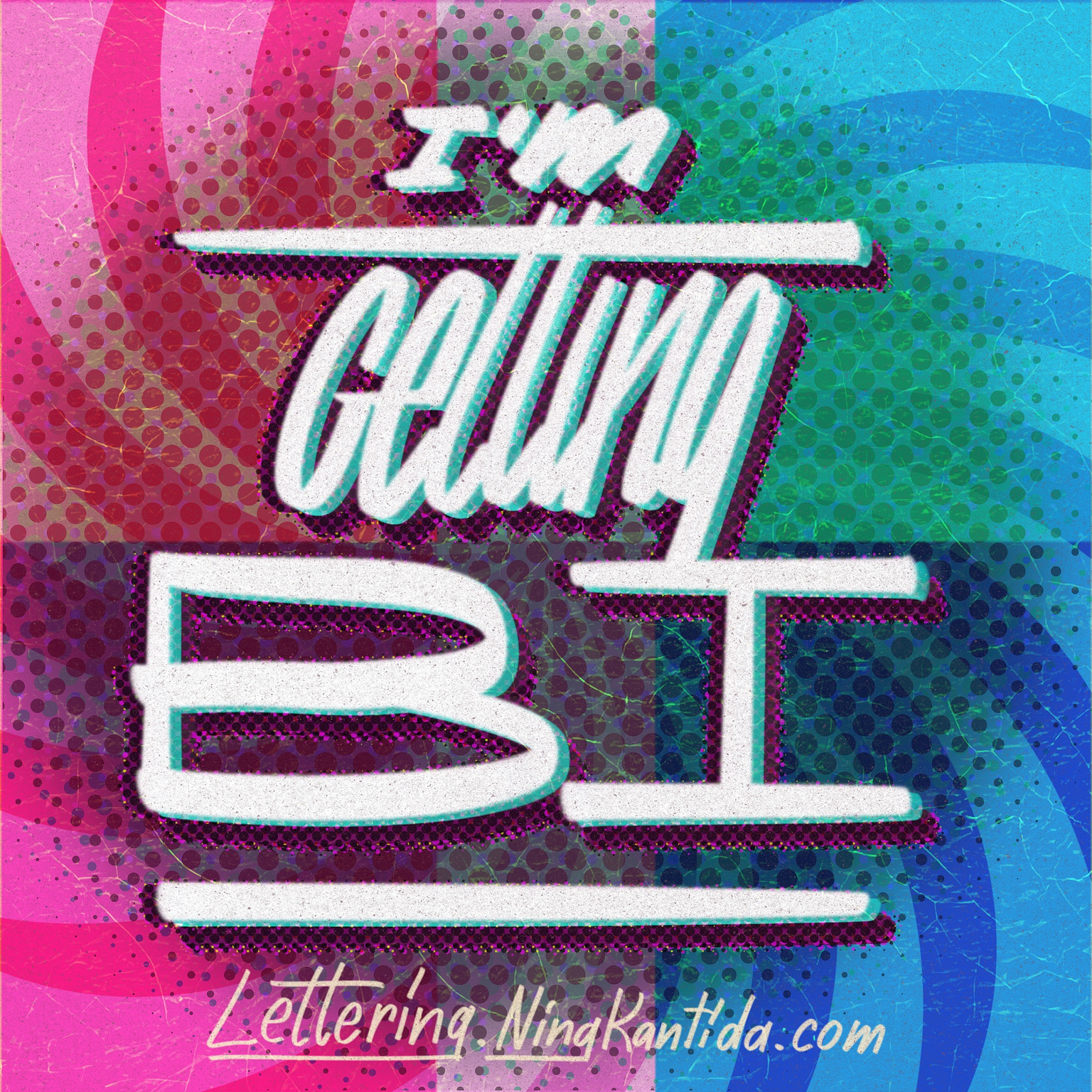
Pride Month Music 06-Gettin' Bi (feat. Pete Gardner) from Crazy Ex-Girlfriend
As we approach the end of Pride Month, I’m creating lettering pieces celebrating music related to LGBTQIA+ community. My goal is to expose people to good music and artists while also help bringing the community filled with diversity together, since music is like a universal language that can touch anyone’s heart.
I absolutely love the show Crazy Ex-Girlfriend, and this song is pure genius! I previously discussed the song Gettin’ Bi in a blog post focused on the lettering of the character who sings it, and I still firmly believe it’s the perfect anthem for anyone coming out as bisexual. The lyrics are packed with quick wit and humor, while radiating an incredibly positive bi energy. Beyond being catchy and clever, the song also helps break down misconceptions and challenges common stereotypes about bisexuality.
For the lettering, I drew heavily from elements of my earlier work to maintain a consistent tone and ensure it aligned seamlessly with the overall theme, with bi flag and fun style.